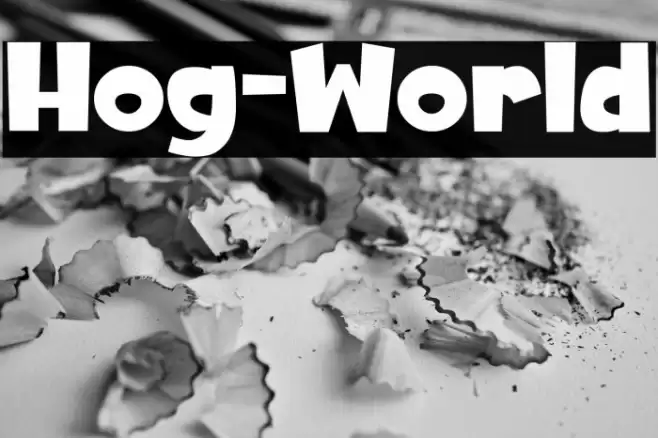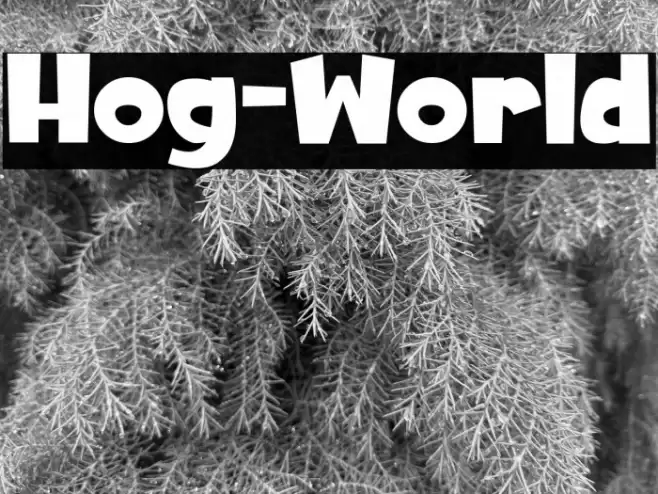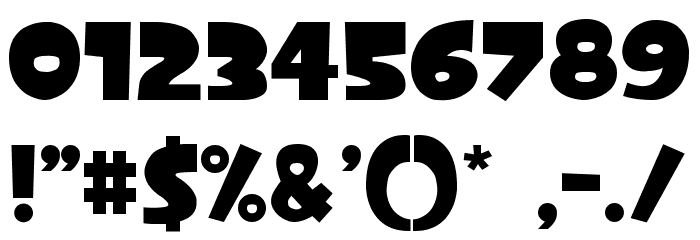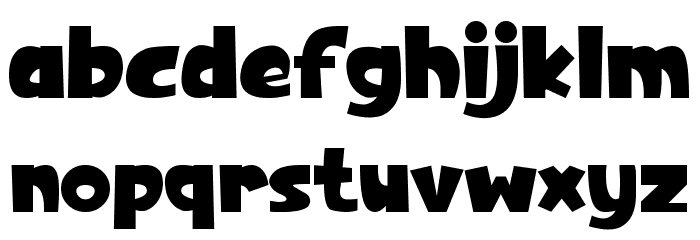
Hog-World Font
Hog-World Description
This font features a bold and playful design with thick, rounded strokes that give it a cartoonish and friendly appearance. The characters are wide and have a slightly irregular shape, adding to its whimsical charm. The uppercase letters are particularly striking, with exaggerated curves and a strong presence. The lowercase letters maintain the same playful style, ensuring consistency across the typeface. Numerals are bold and easily readable, while the special characters complement the overall design with their unique and quirky forms.
A bold, playful font with rounded, cartoonish characters from Cartoon fonts.
- Proposed Projects: Ideal for children's books, comic strips, playful branding, and event posters.
- Width: Expanded
- Overall Style: Playful, Cartoonish